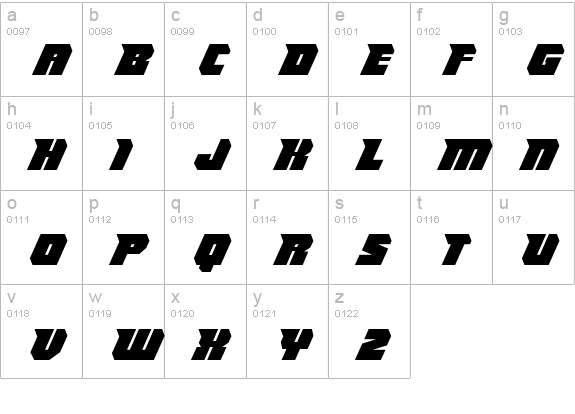
Thunder Titan Font Details
Thunder Titan font is a striking and powerful typeface that exudes a sense of strength and dominance. With its bold and angular letterforms, this font commands attention and makes a bold statement. Perfect for headlines, posters, and branding projects, Thunder Titan font is sure to leave a lasting impression on your audience.